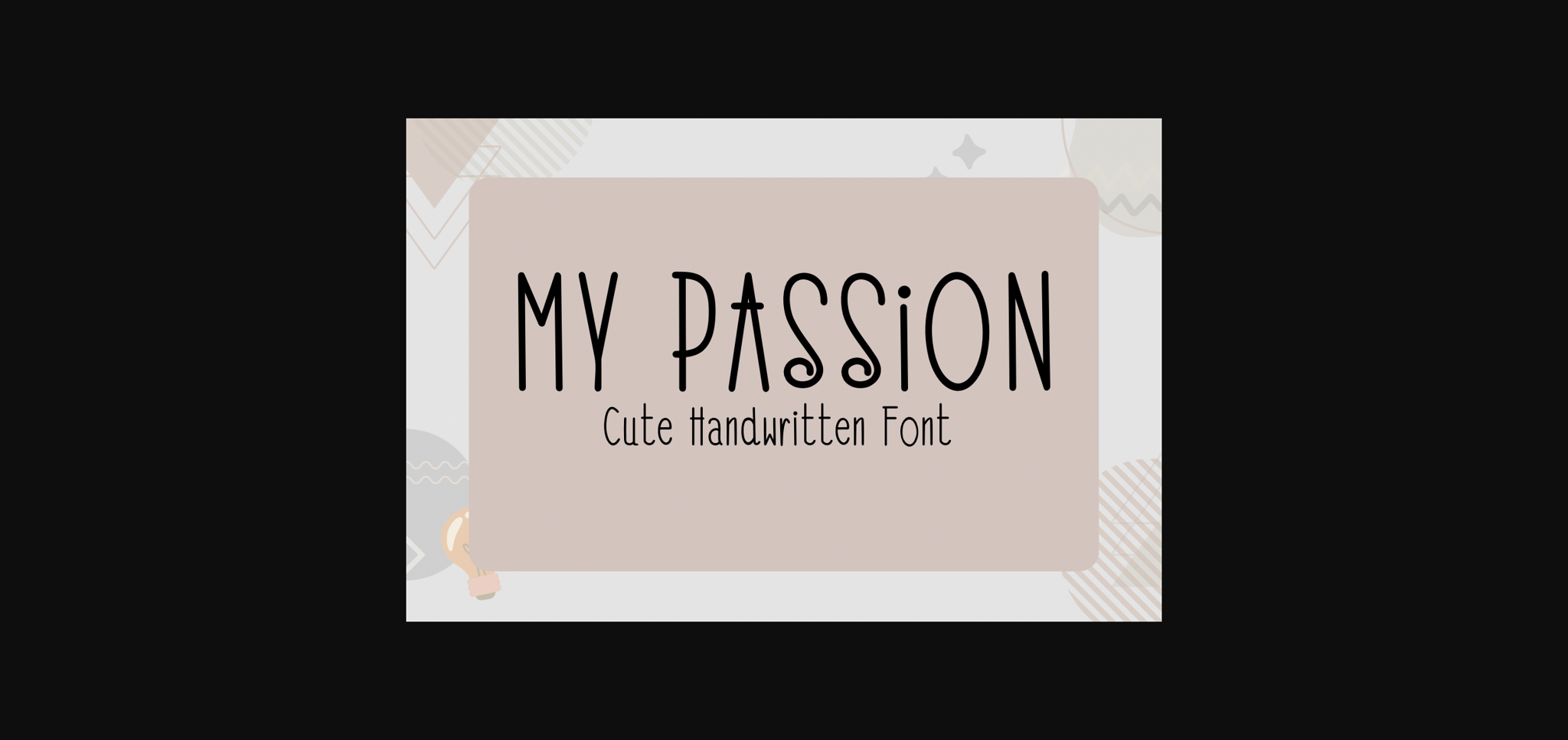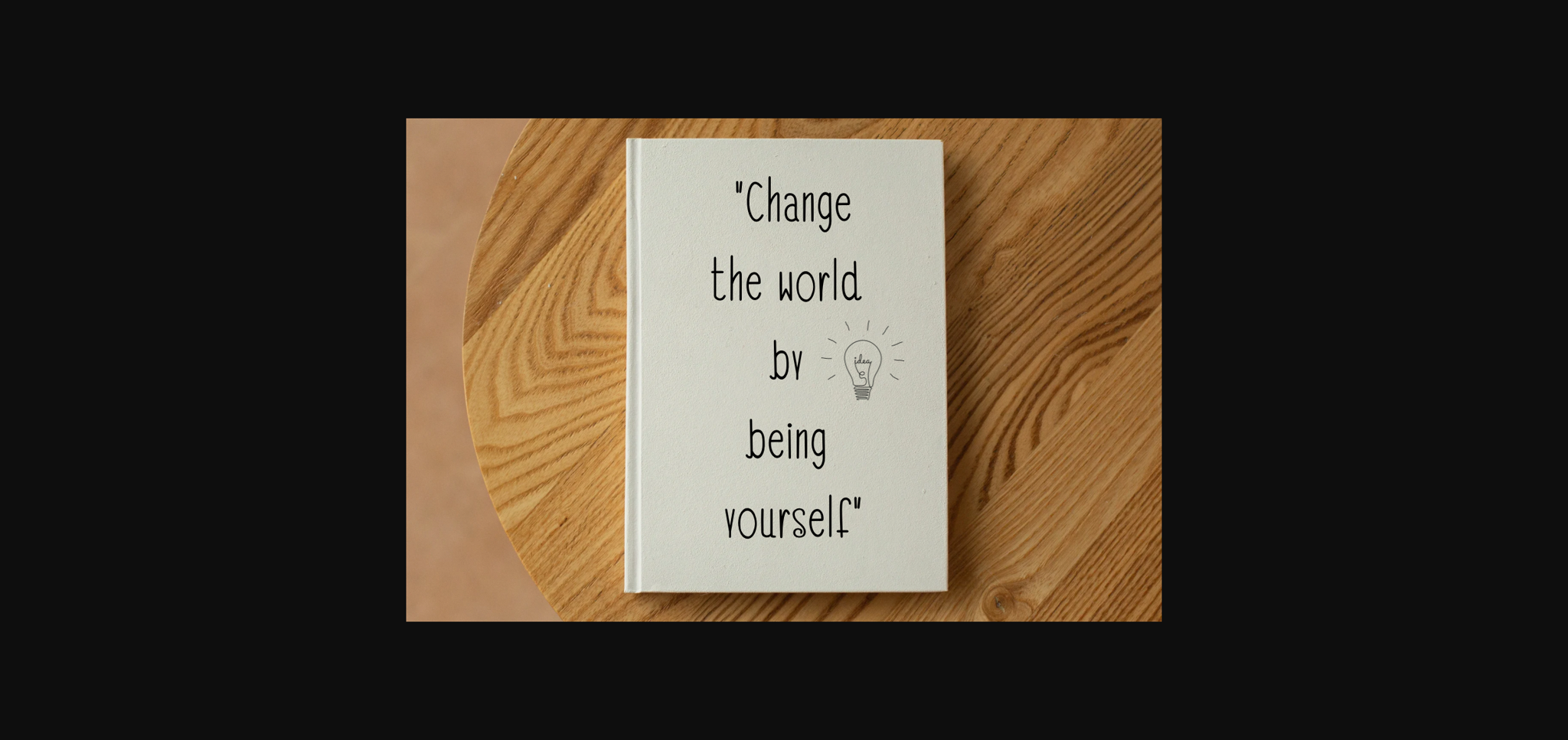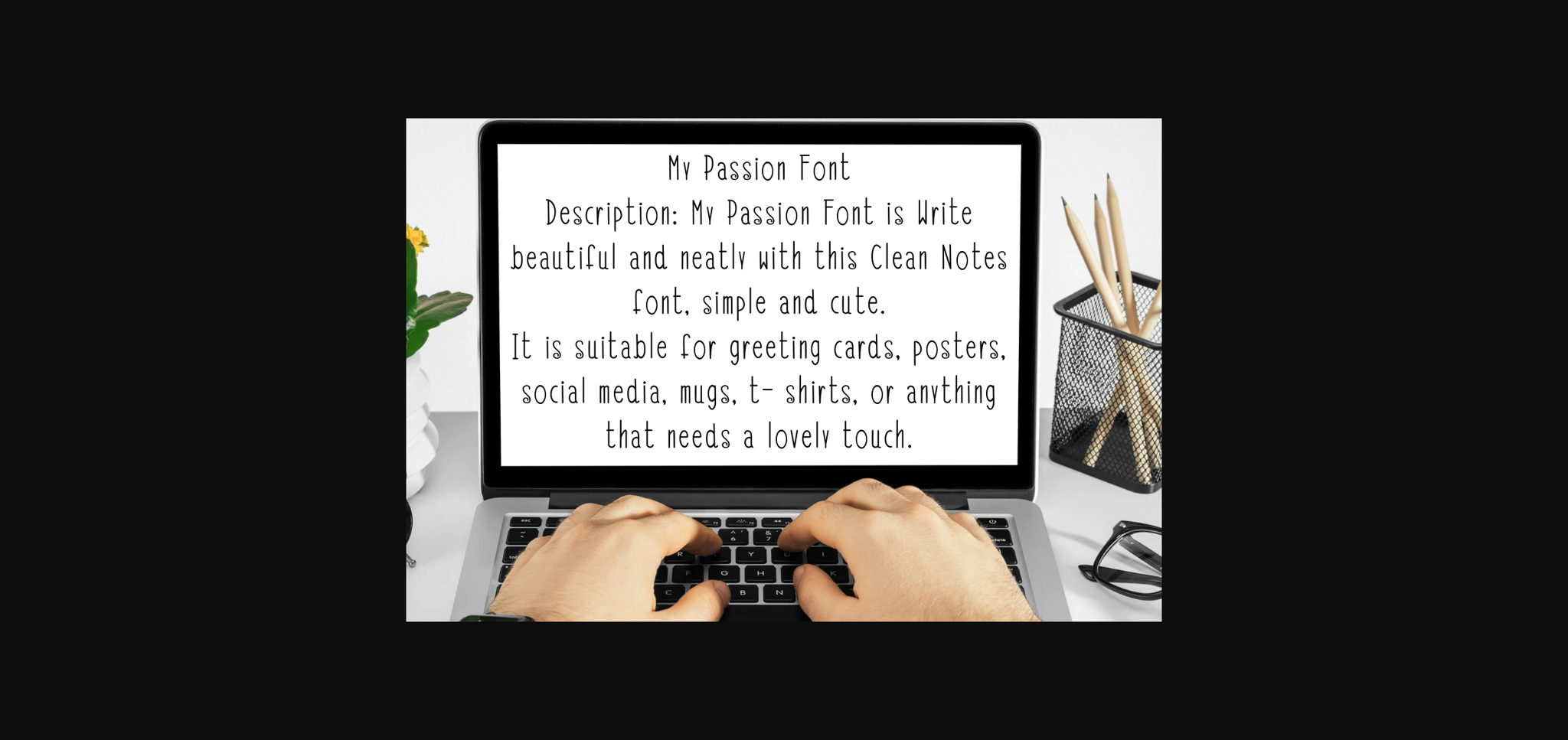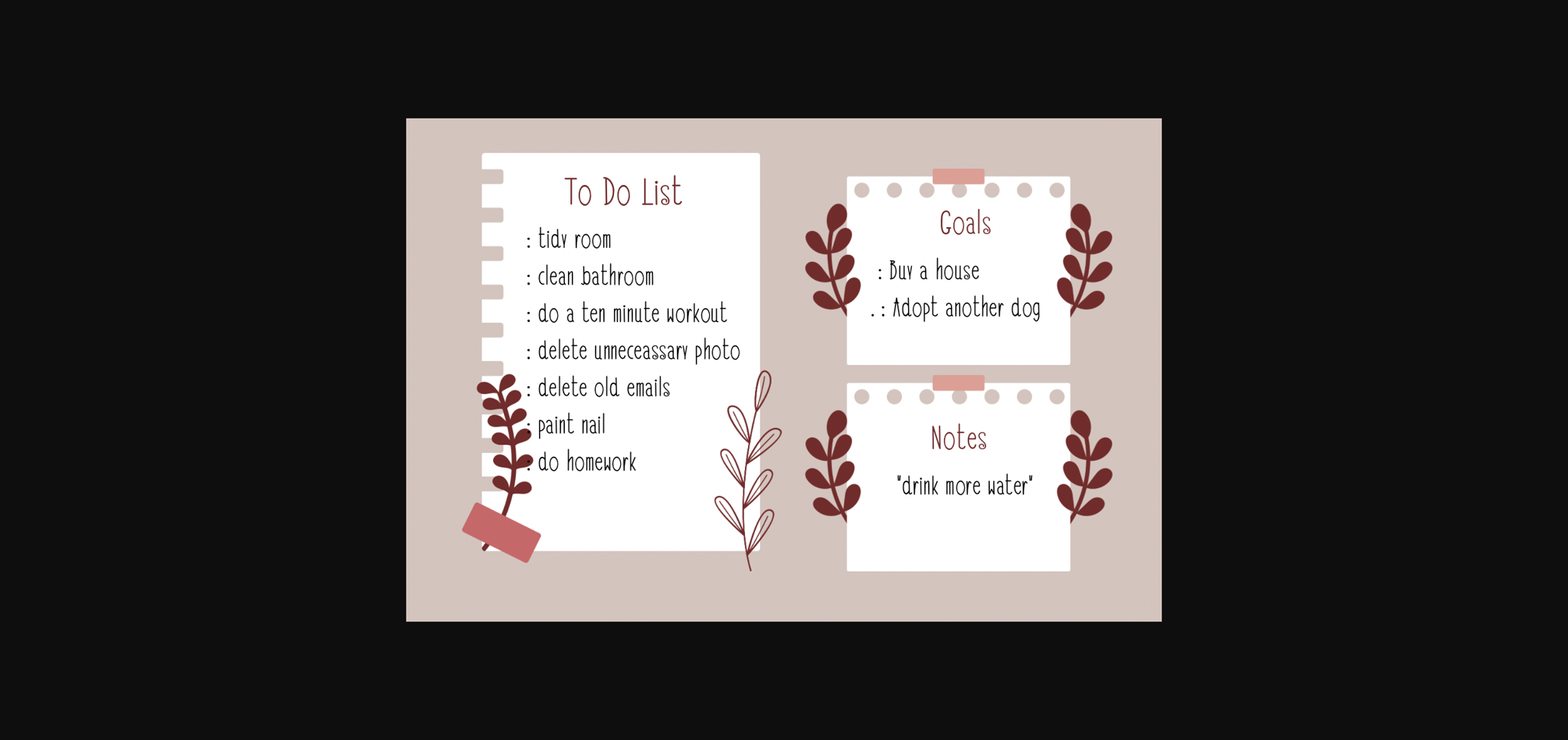
About My Passion Font
“My Passion Font,” achieve beautifully neat writing through the elegance of “Clean Notes.” This font embodies a delightful simplicity and charm, making it an ideal choice for greeting cards, posters, eye-catching social media graphics, stylish mugs, trendy t-shirts, or any creative project that craves a touch of loveliness.